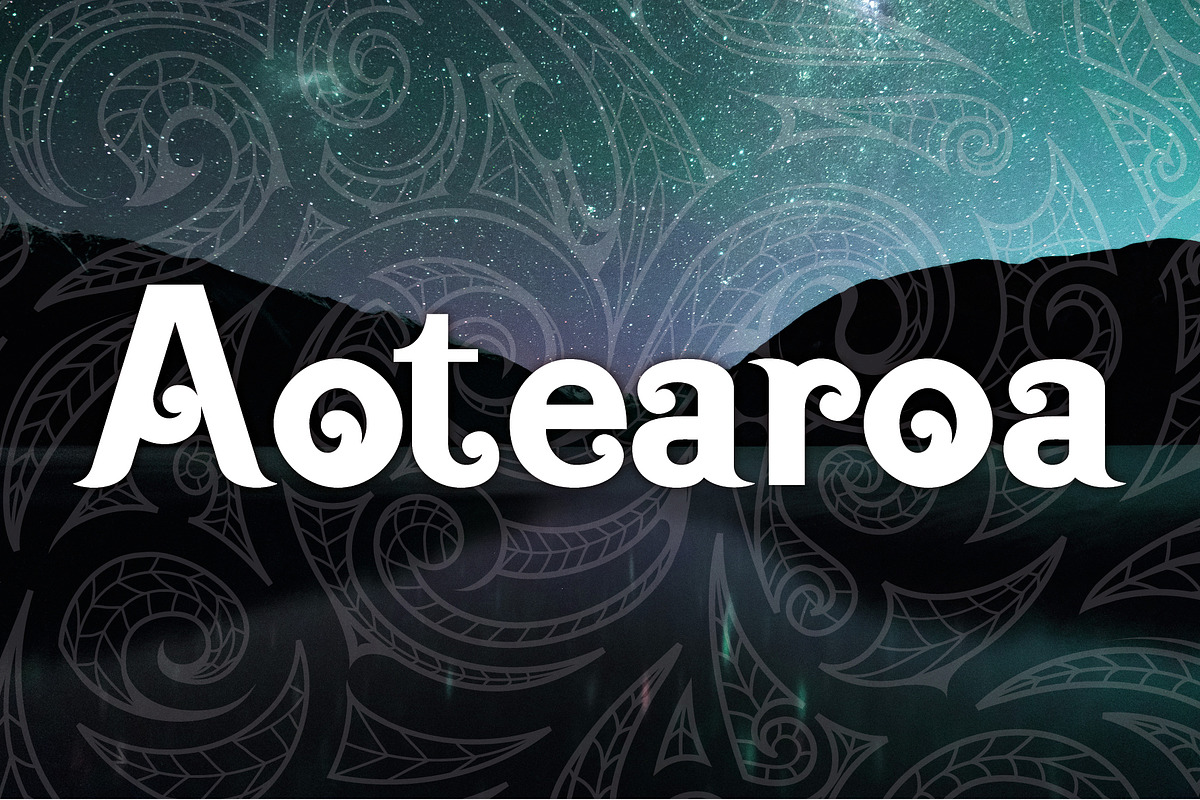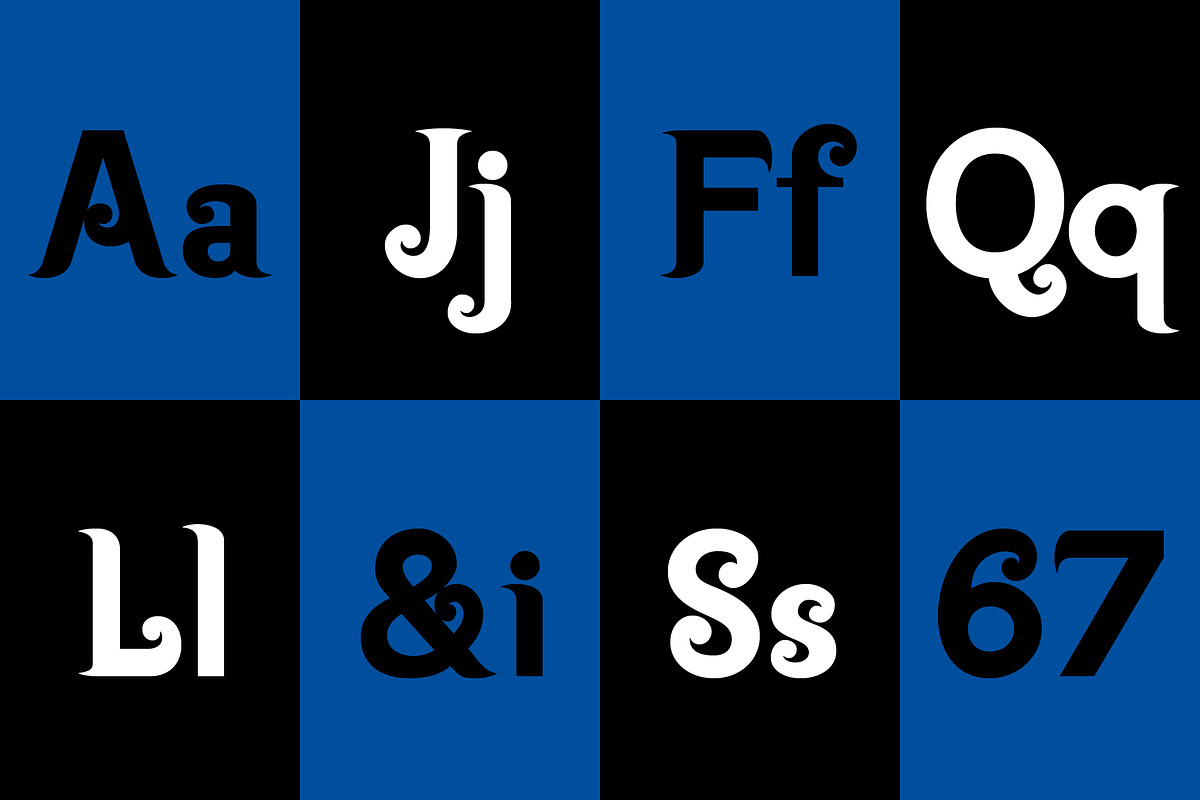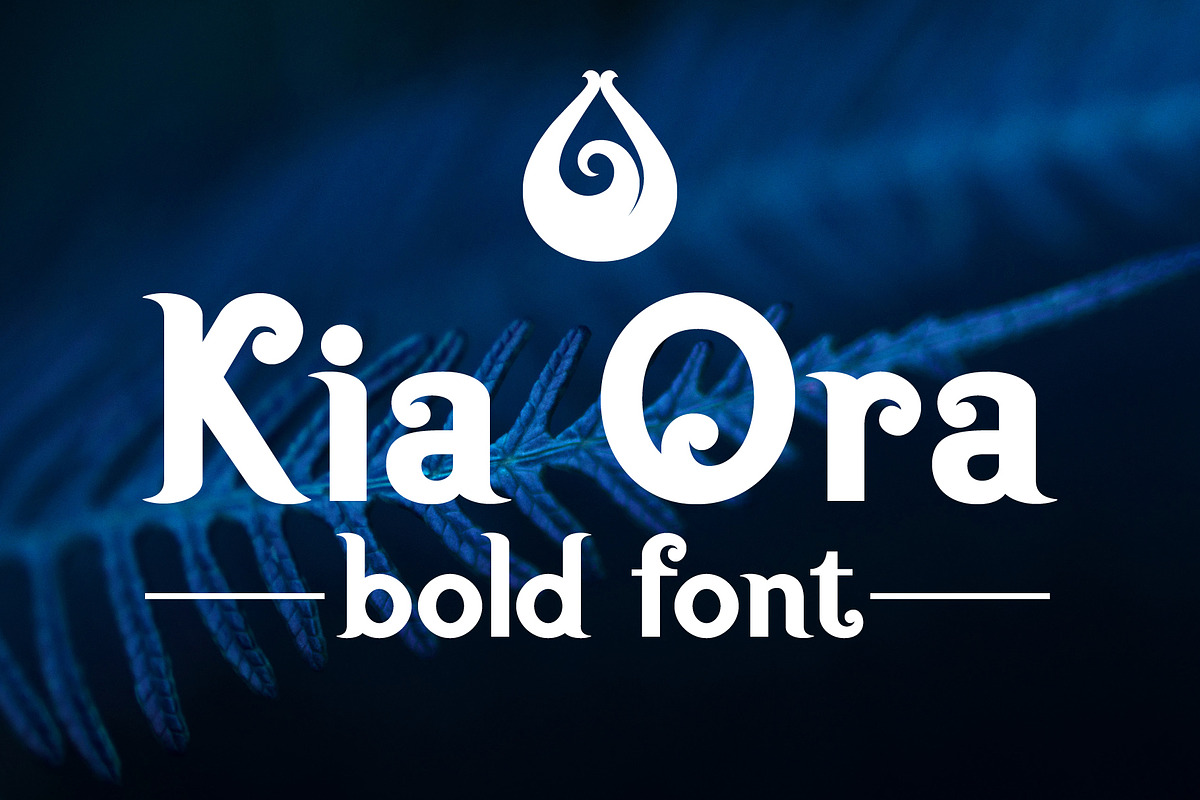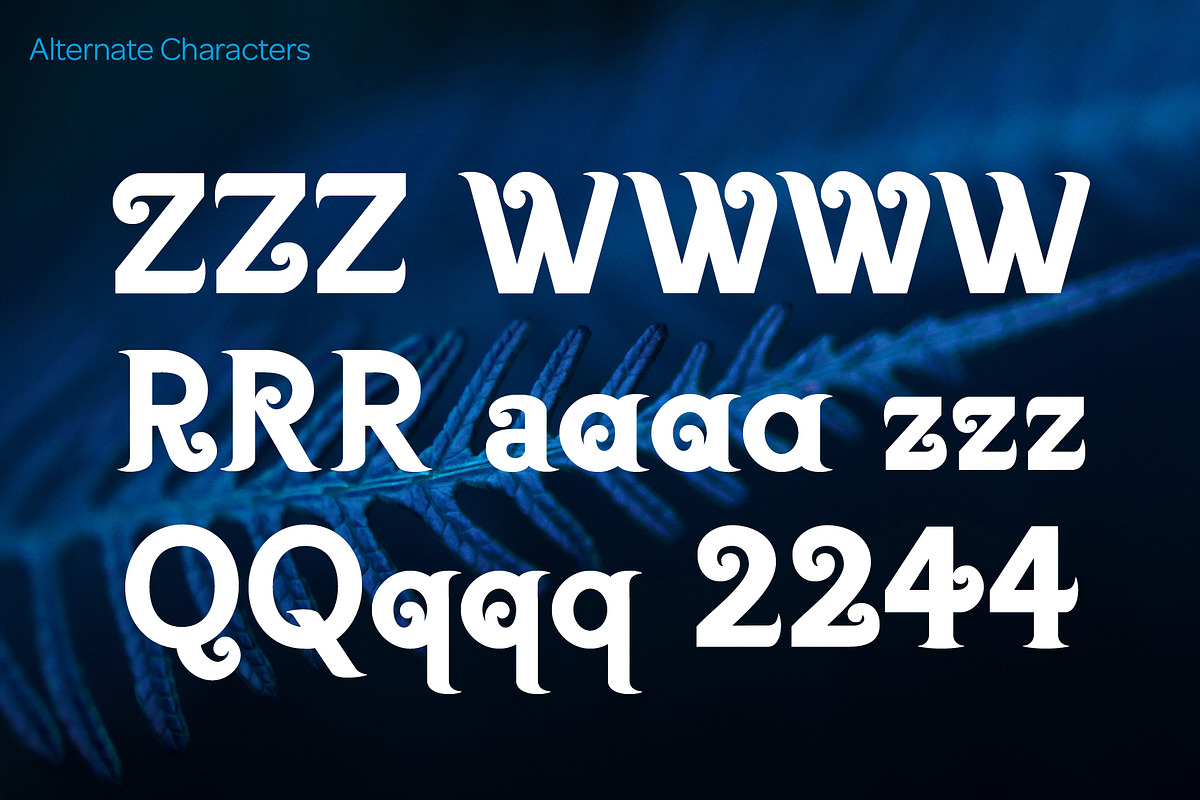
Kia Ora Font - Bold
Kia ora is a Māori-language greeting which is used as an informal greeting, equivalent to "hi" or "hello", or an expression of thanks in New Zealand.
The koru (Māori for loop or coil) is a spiral shape based on the appearance of a new unfurling frond. It is an integral symbol in Māori art, carving and tattooing, where it symbolises new life, growth, strength and peace. Its shape conveys the idea of perpetual movement, while the inner coil suggests returning to the point of origin.